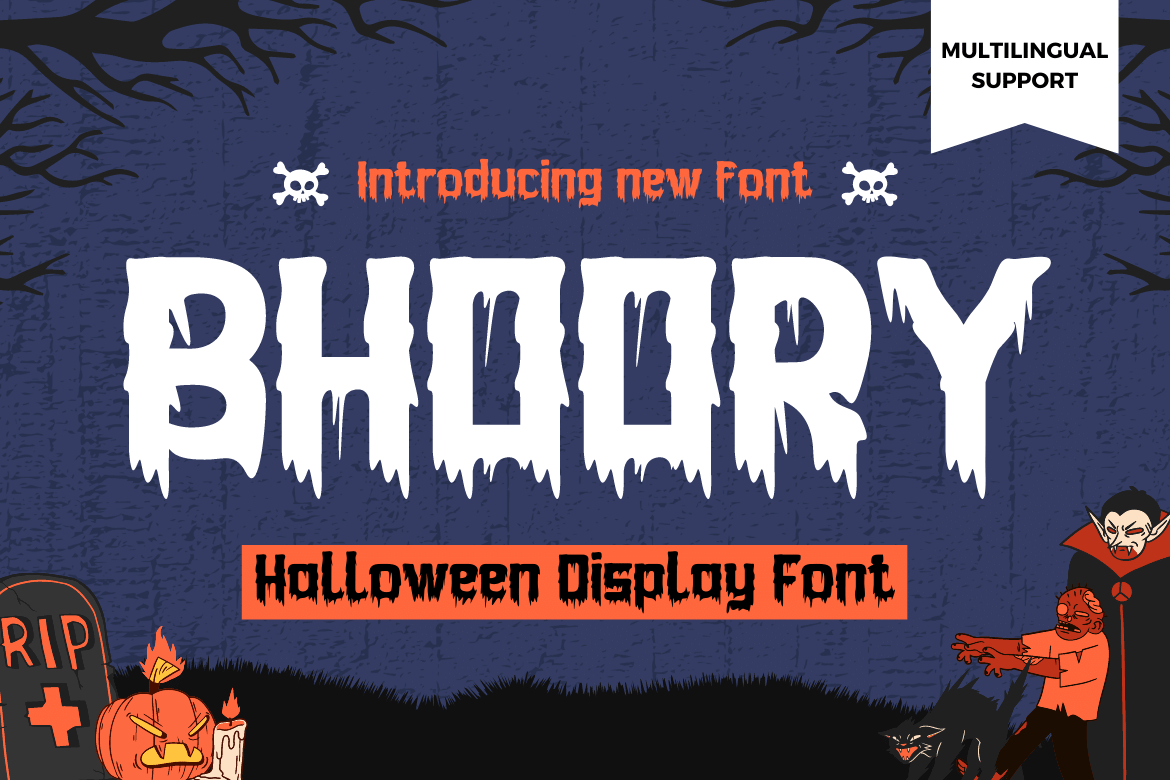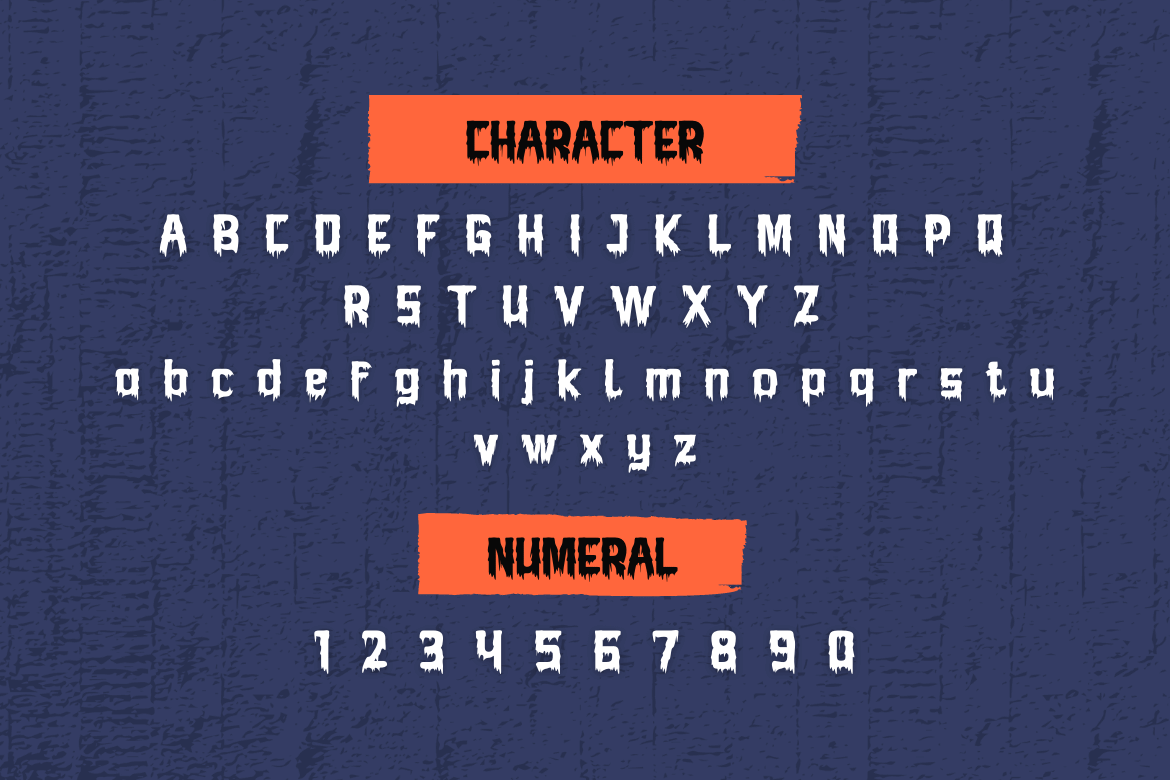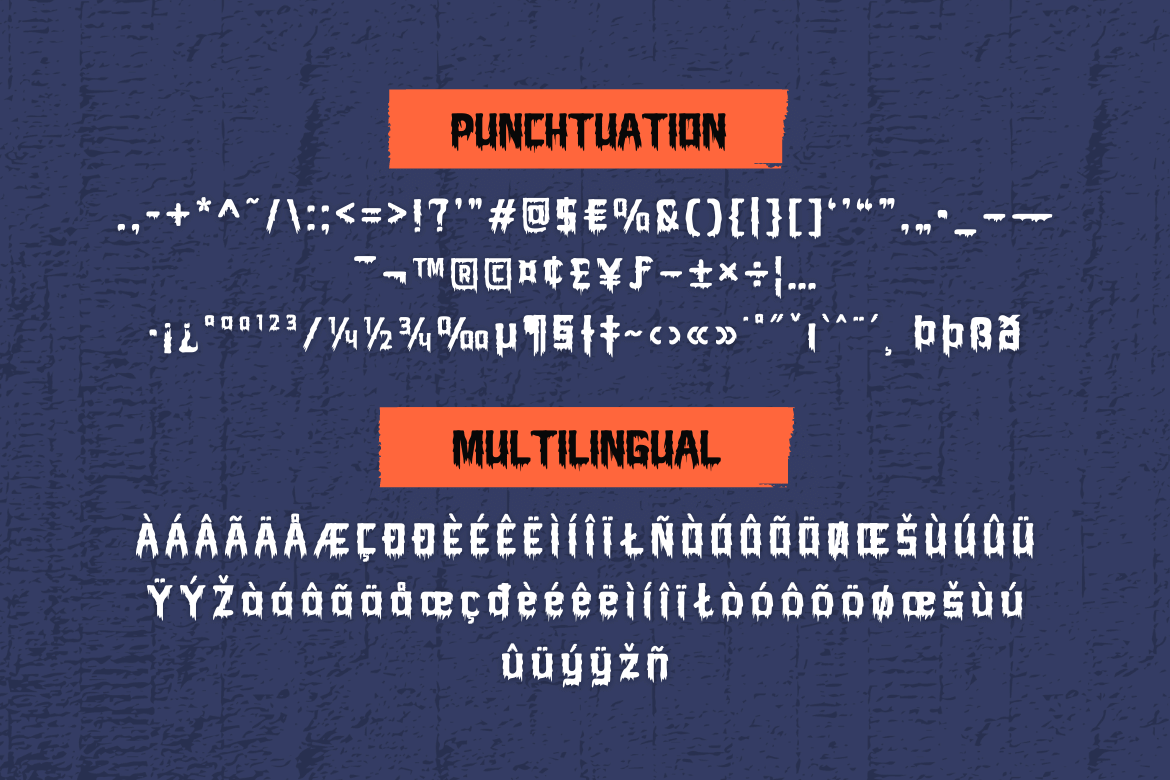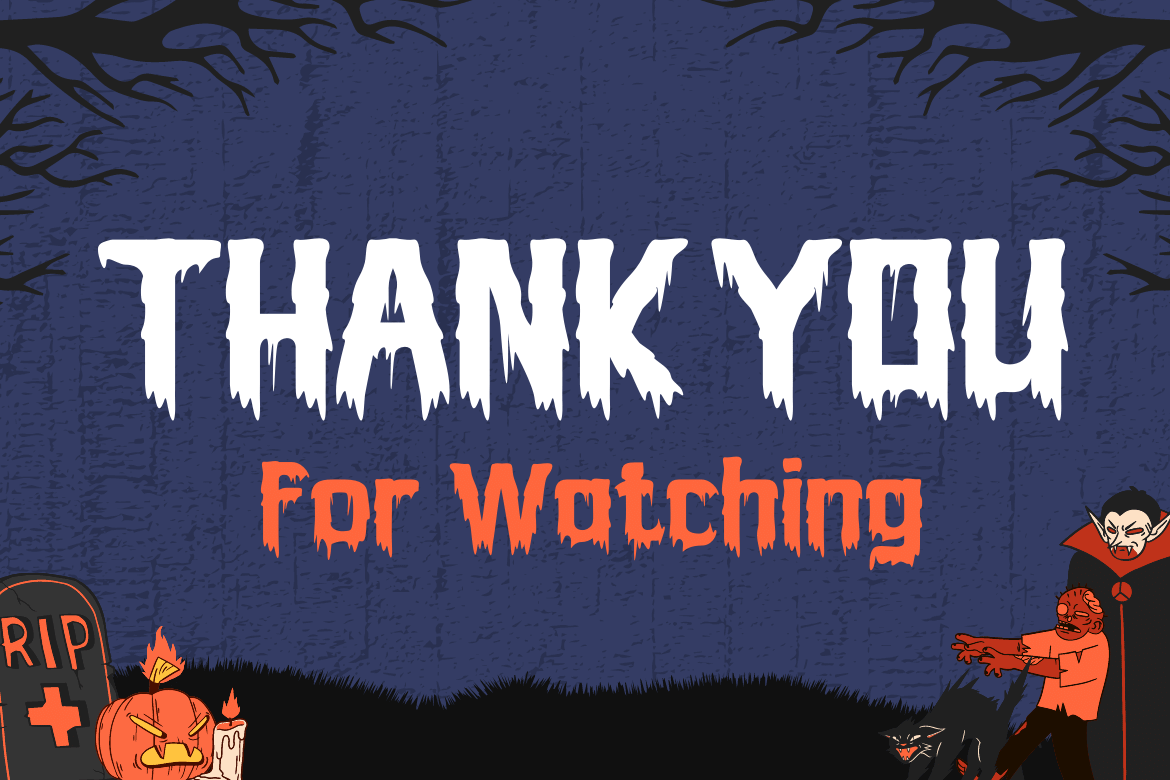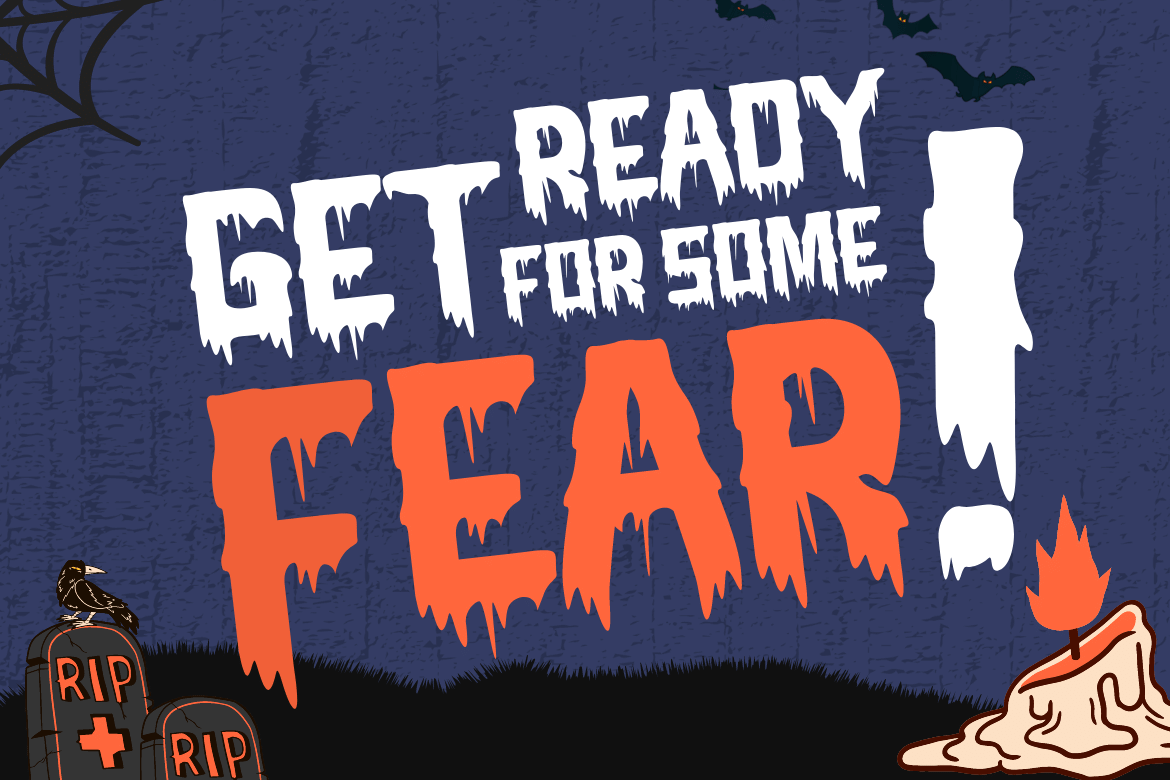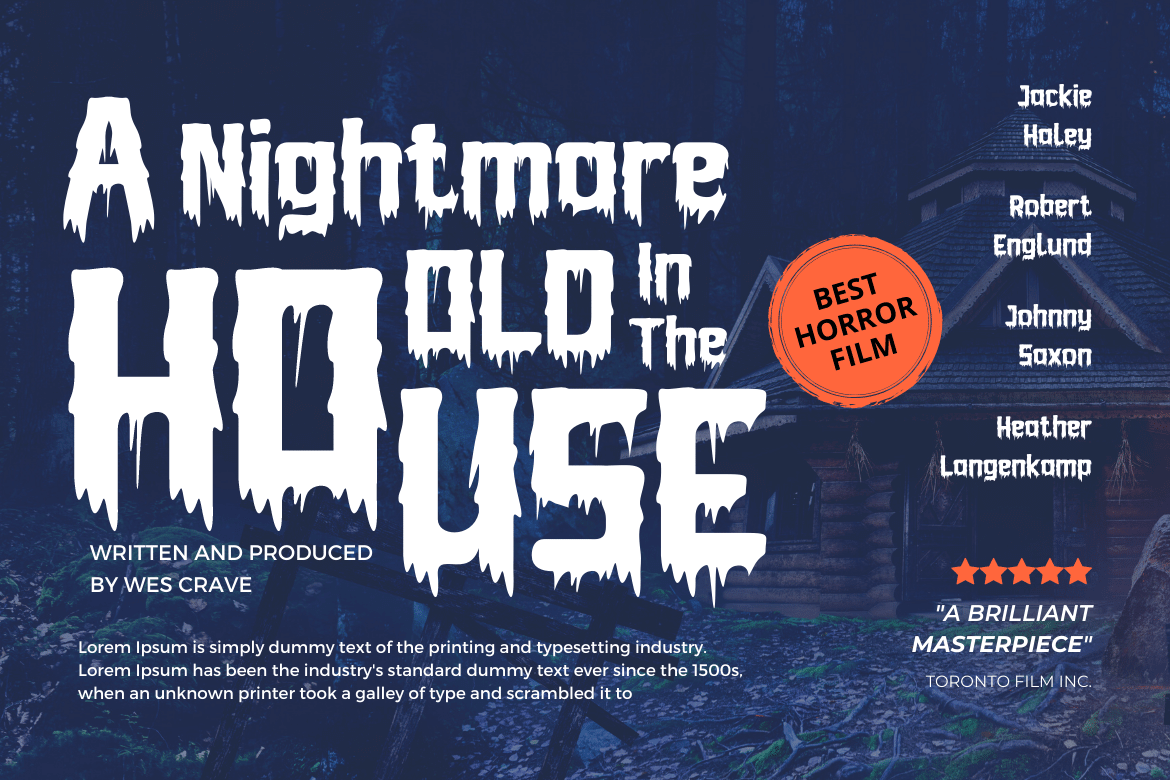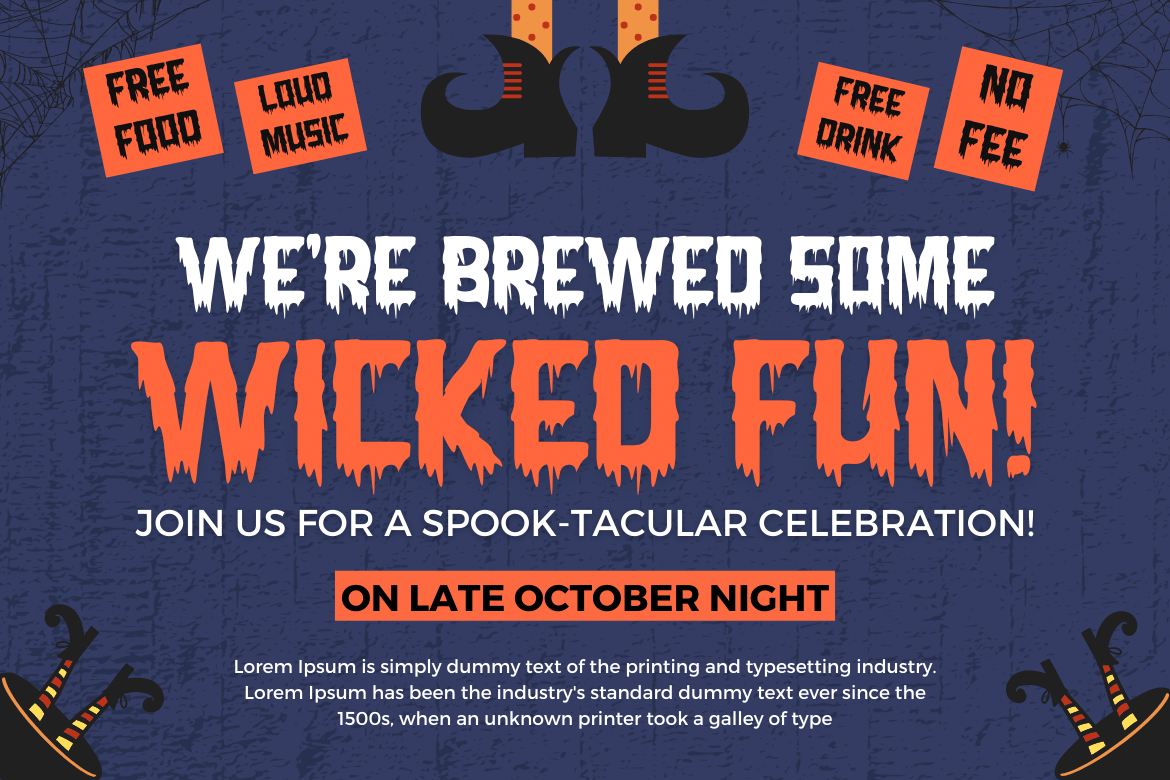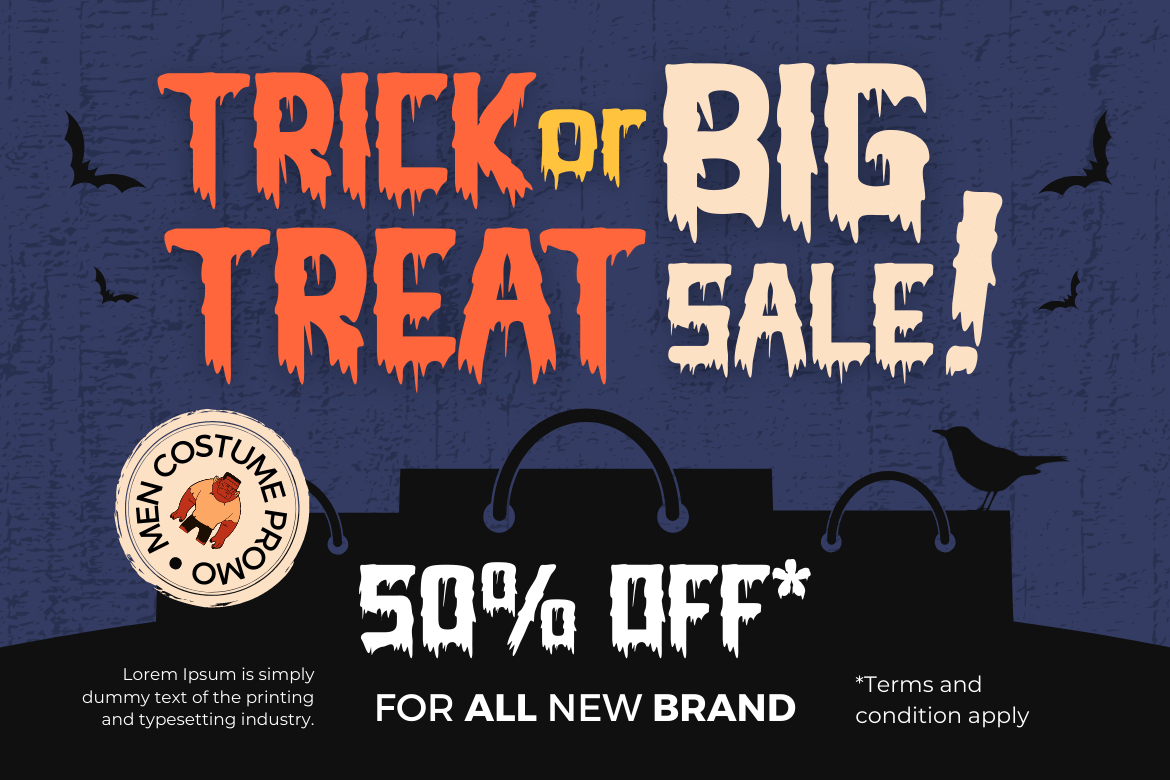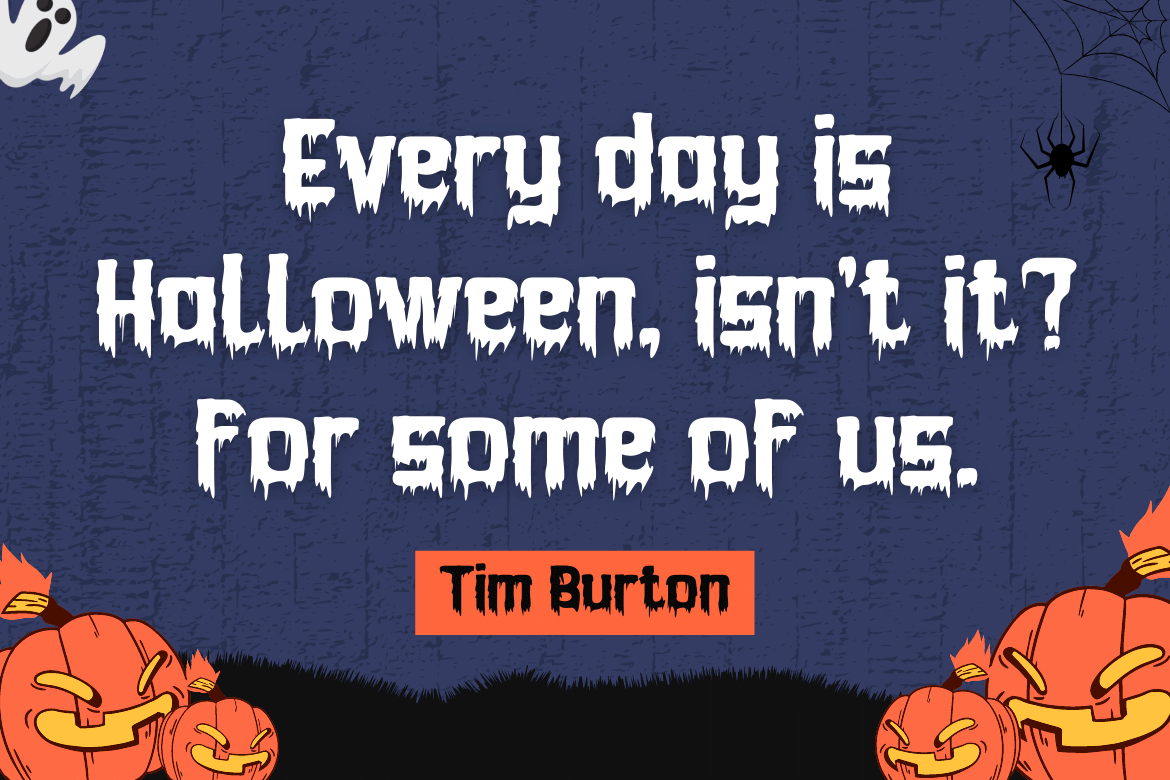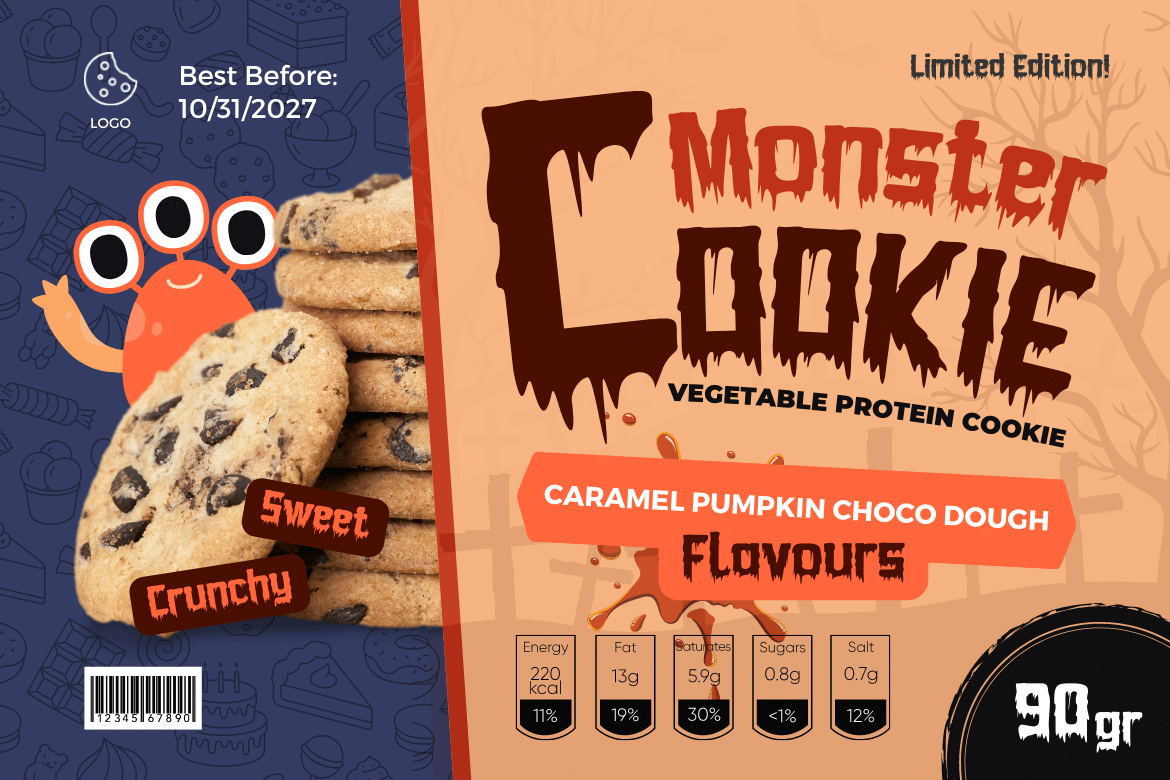
- BHOORY
Bhoory Halloween Font is a bold font that will help you create powerful text or logos and designs for your Halloween themed projects. Use it to create invitations, flyers, and posters, or use the font as a headline or just a decoration. You can use this font to depict Halloween in an artistic or spooky way while showing your creative talents.